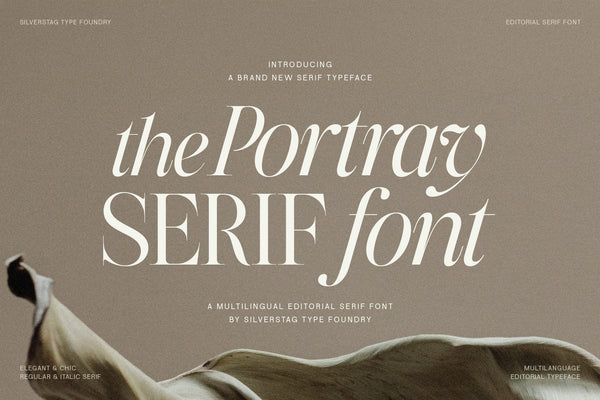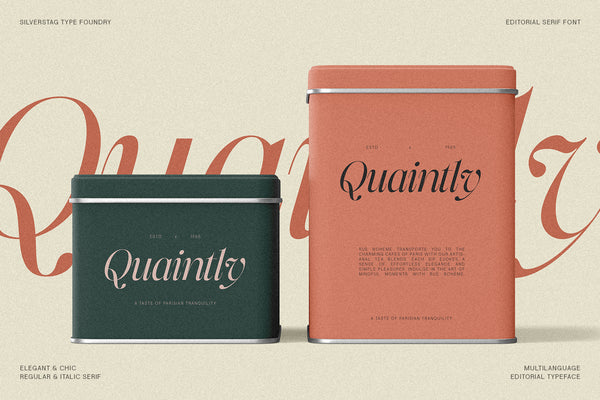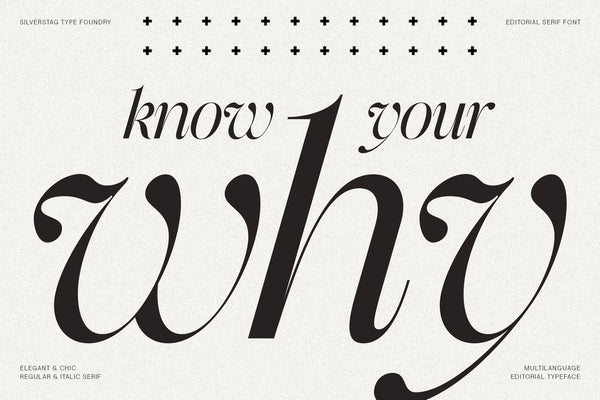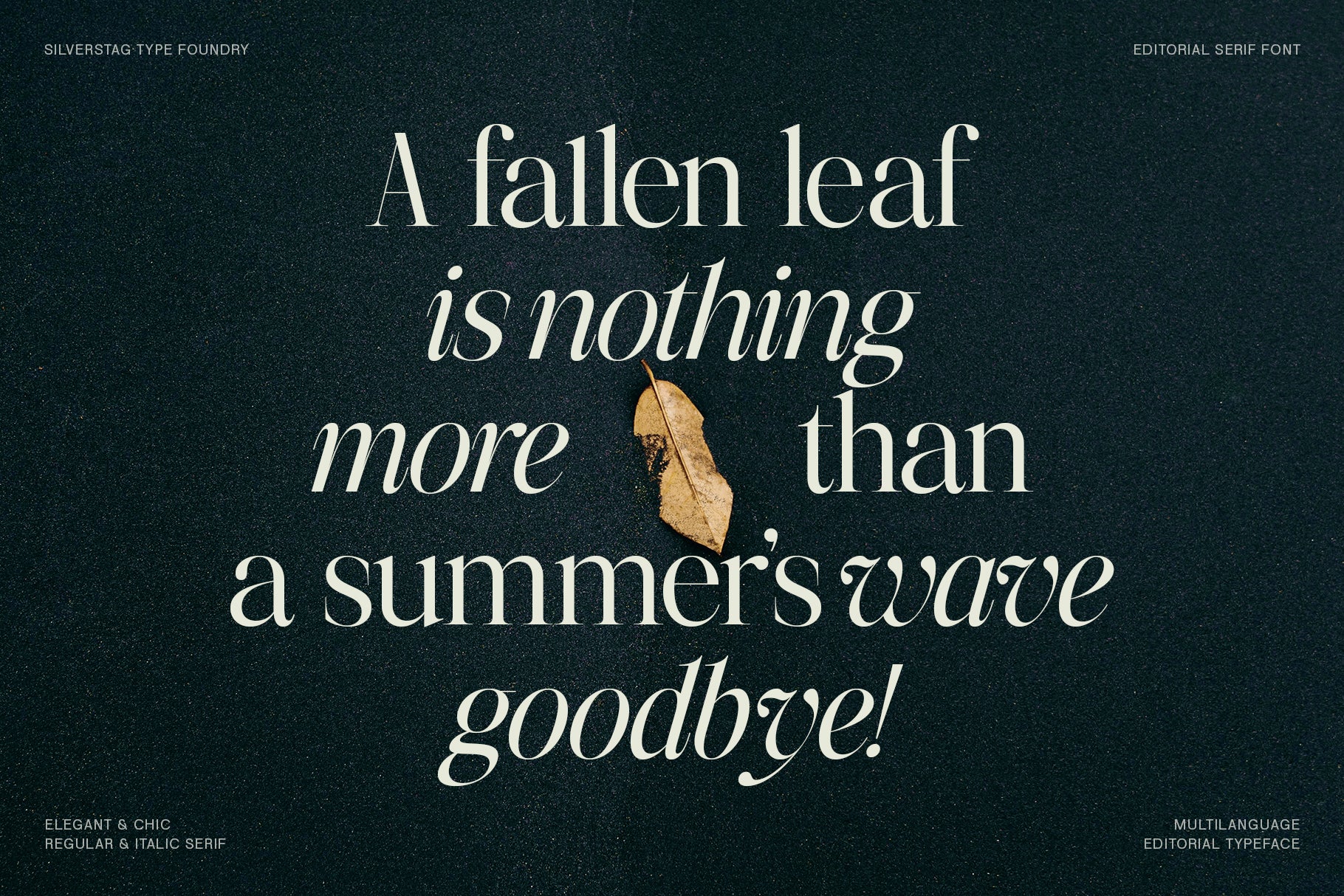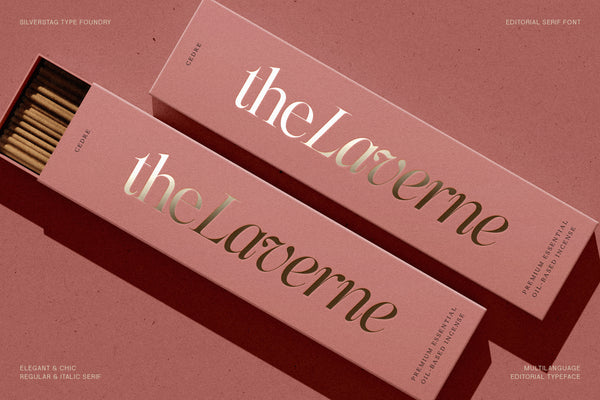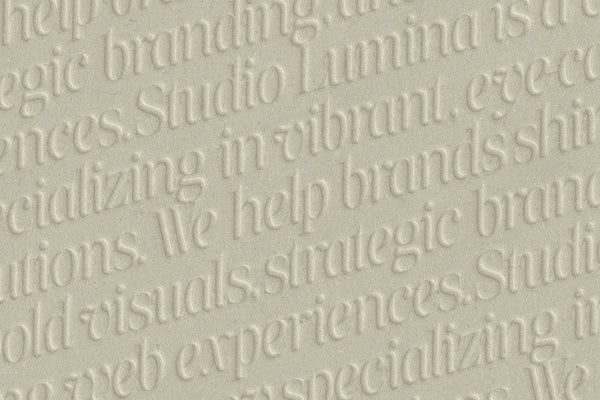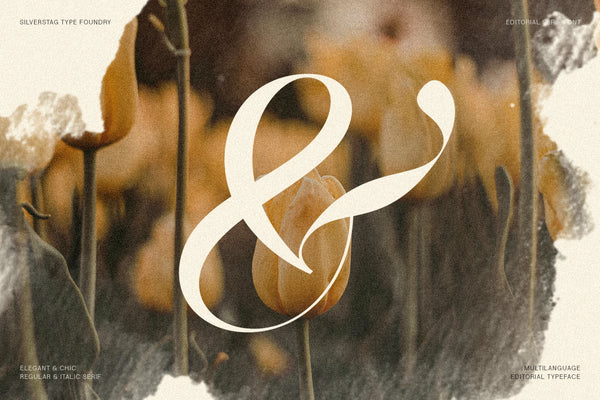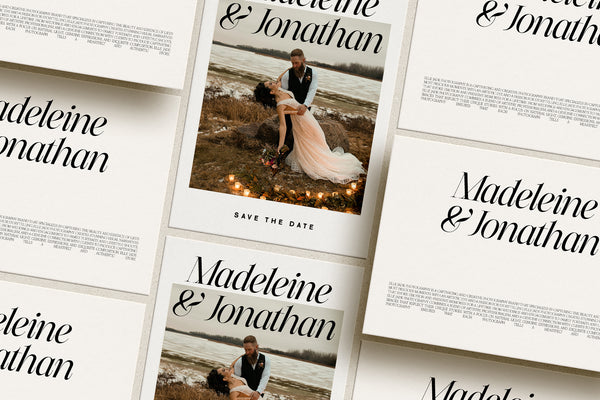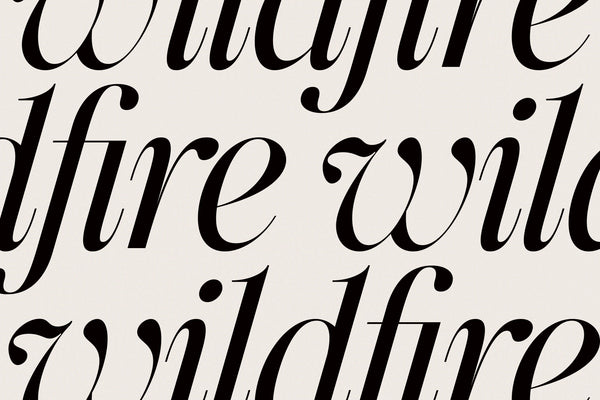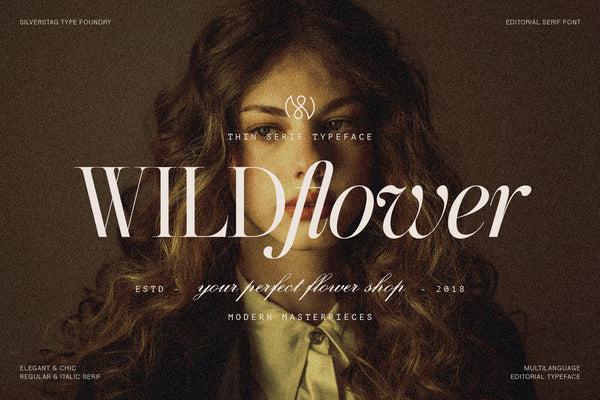
The Portray is a refined serif typeface that blends timeless elegance with modern sensibility. With its high-contrast strokes, sculpted serifs, and clean proportions, The Portray is perfect for creating sophisticated editorial layouts, luxury branding, and stylish digital content.
Thoughtfully crafted to balance strength and subtlety, The Portray includes true italics—not...
The Portray is a refined serif typeface that blends timeless elegance with modern sensibility. With its high-contrast strokes, sculpted serifs, and clean proportions, The Portray is perfect for creating sophisticated editorial layouts, luxury branding, and stylish digital content.
Thoughtfully crafted to balance strength and subtlety, The Portray includes true italics—not just slanted versions, but individually designed characters that add graceful motion and contrast to your layouts. A curated set of ligatures and advanced OpenType features brings personality and polish to every word.
From long-form publishing to packaging and high-end web design, The Portray offers elegance, readability, and versatility across applications. With support for 90+ languages, it’s a global-ready typeface designed to elevate your creative voice.